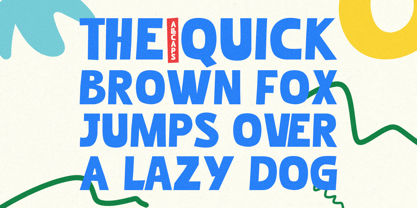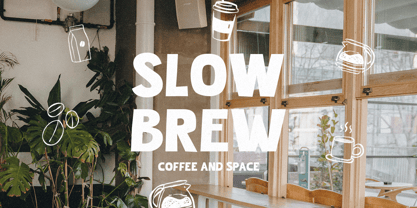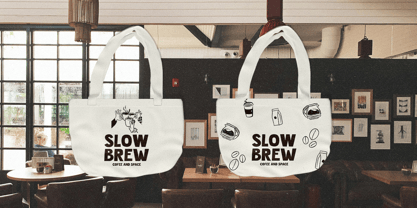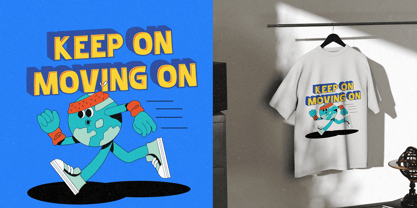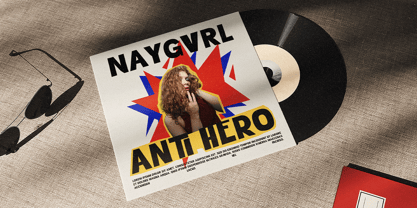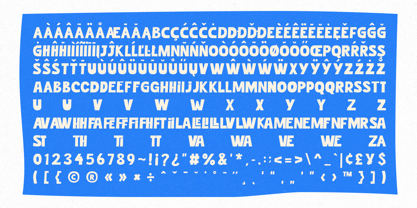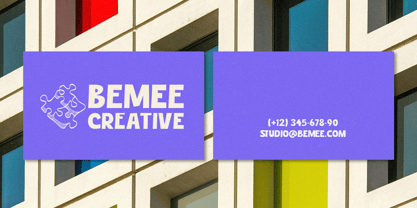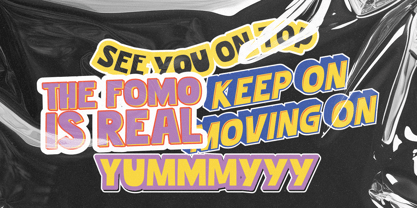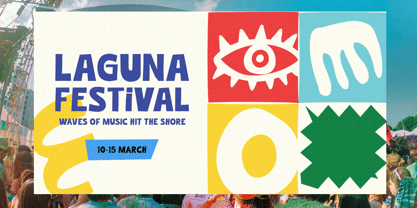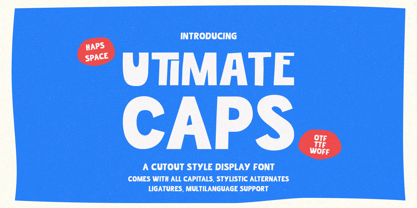
Utimate Caps Cutout
von Haps Space
Die Schriftfamilie Utimate Caps Cutout wurde von Haris Purnama Putra, Egi Ahmad Mufid entworfen und von Haps Space veröffentlicht. Utimate Caps Cutout enthält 1 Stile. Mehr über diese Familie
Utimate Caps is a bold, all-caps display typeface characterized by a distinctive cutout style, giving it a playful yet strong visual impact. Designed primarily for headline and display usage, this font features robust, chunky letterforms that command attention. The overall presentation suggests a theme of fun, energy, and retro-inspired design. What’s included: Full multilingual character set OpenType features such as ligatures and alternates Compatible with Adobe Illustrator, Photoshop, InDesign, and Microsoft Word PUA encoded characters – easily accessible without extra design software to use Alternates and Ligatures you need a Program supports OpenType features such as Adobe Illustrator CS, Adobe Photoshop CC, Adobe Indesign and Corel Draw. I really hope you'll get pleasure using Utimate Caps and it will be perfect addition to your font collection! Contact me with an inbox message If you have any question. Thank you! Happy Creating.